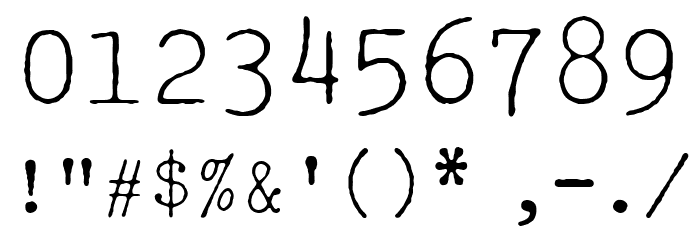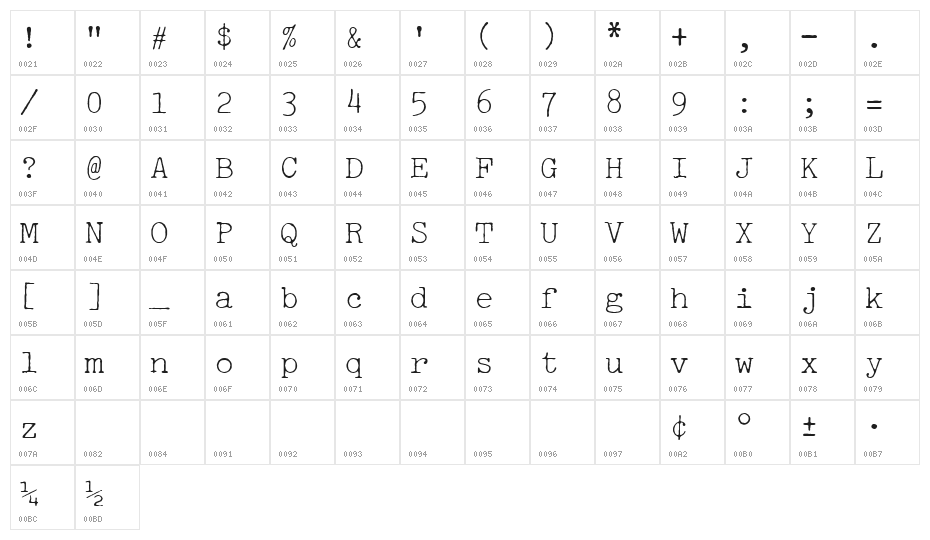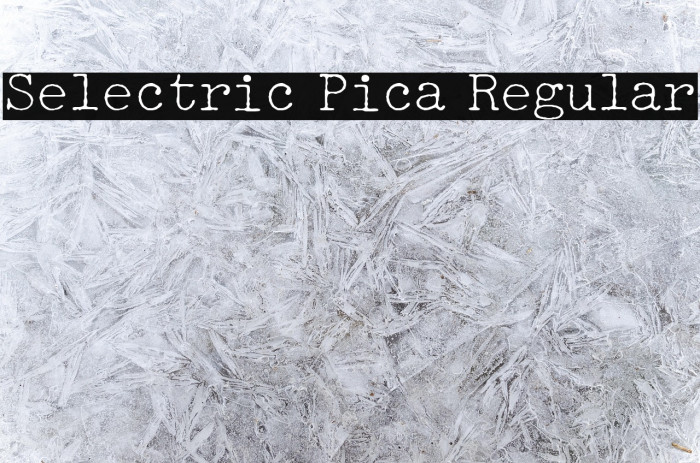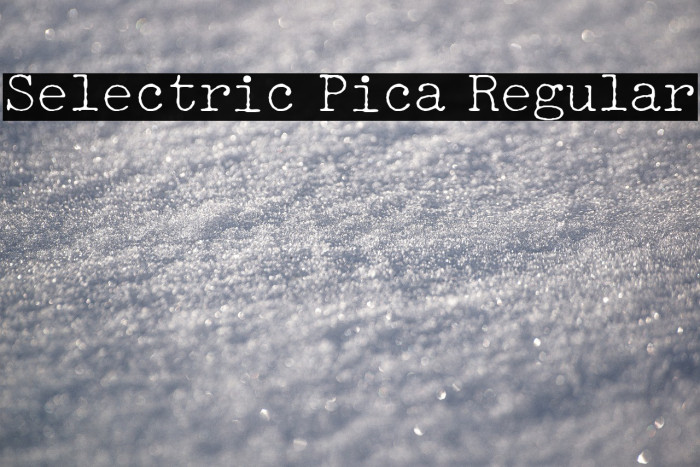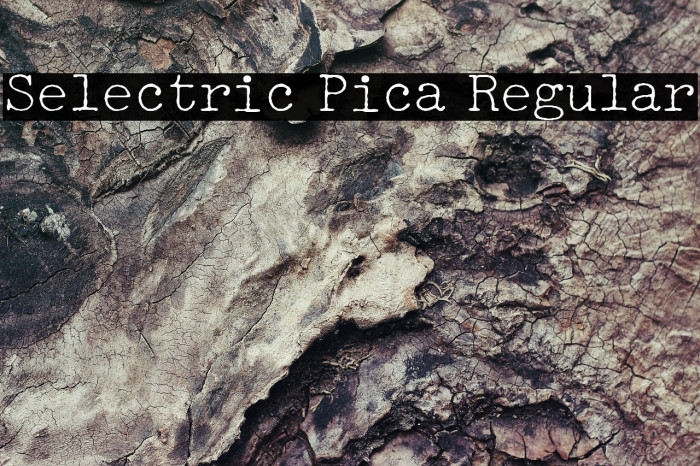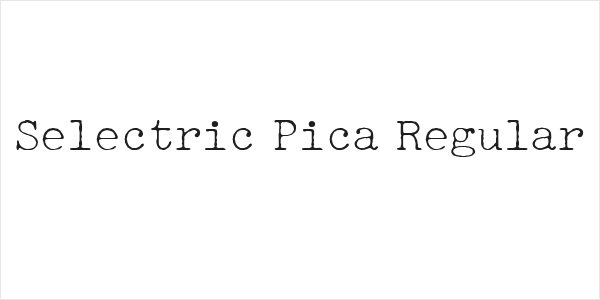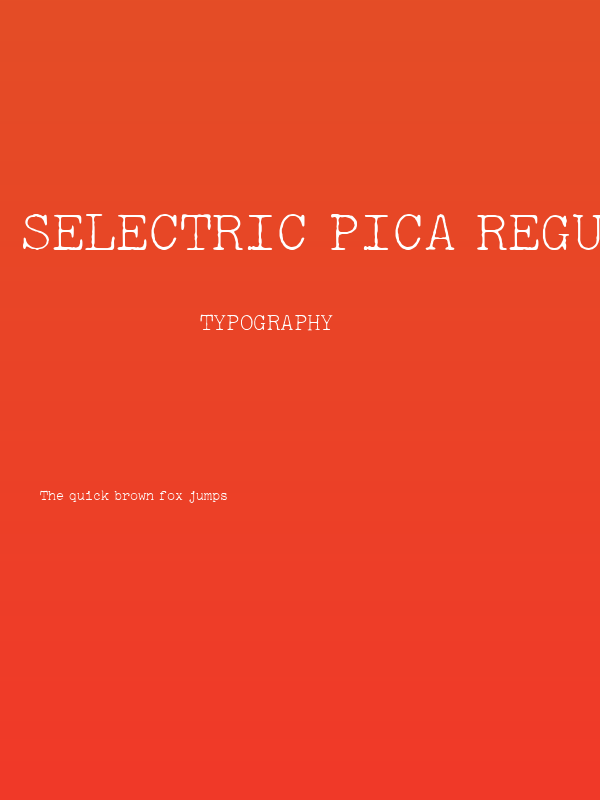
Selectric Pica Regular Font
Selectric Pica Regular Description
This typeface exudes a classic typewriter aesthetic, characterized by its monospaced design and mechanical precision. Each character is uniformly spaced, creating a consistent rhythm across the text. The letters have a slightly rough, textured appearance, reminiscent of ink on paper, which adds a touch of vintage charm. The uppercase letters are bold and prominent, while the lowercase letters maintain a balanced and readable form. Numerals are clear and distinct, ensuring legibility. The special characters are well-defined, complementing the overall style. This font is ideal for projects that require a retro or nostalgic feel, such as vintage-themed designs, typewriter simulations, or creative writing projects.